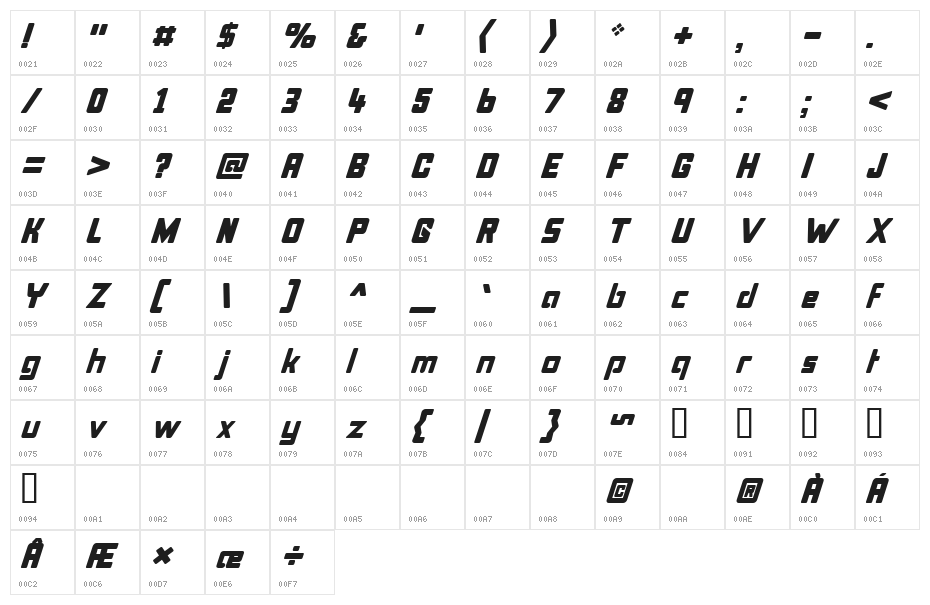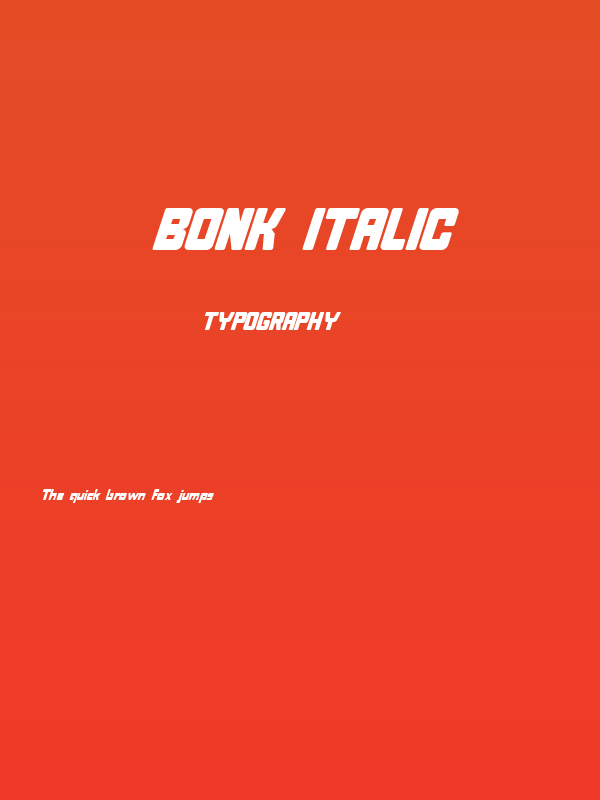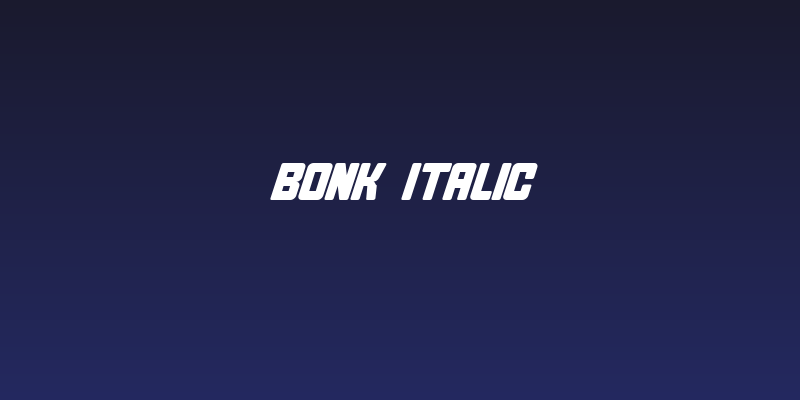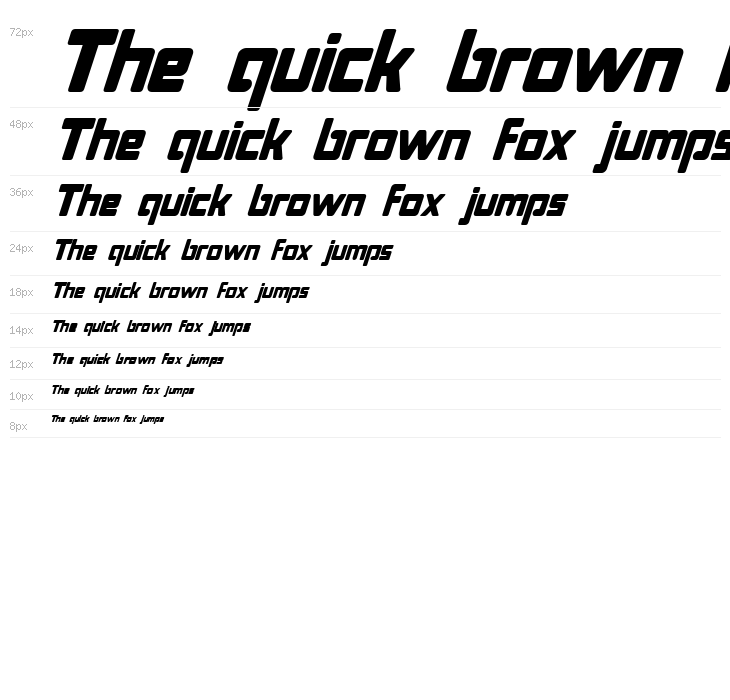
Bonk Italic Font
Bonk Italic Description
This font exhibits a bold and dynamic style with a distinct italic slant, giving it a sense of motion and energy. The characters are thick and robust, with a uniform stroke width that maintains consistency across all letters and numbers. The design is modern and slightly aggressive, making it stand out in any application. The uppercase and lowercase letters are well-proportioned, and the numerals are clear and easy to read. Special characters are included, maintaining the same bold style, ensuring versatility in various design contexts.
| Proposed Projects | Ideal for sports branding, dynamic posters, video game titles, and any project requiring a bold, energetic typeface. |